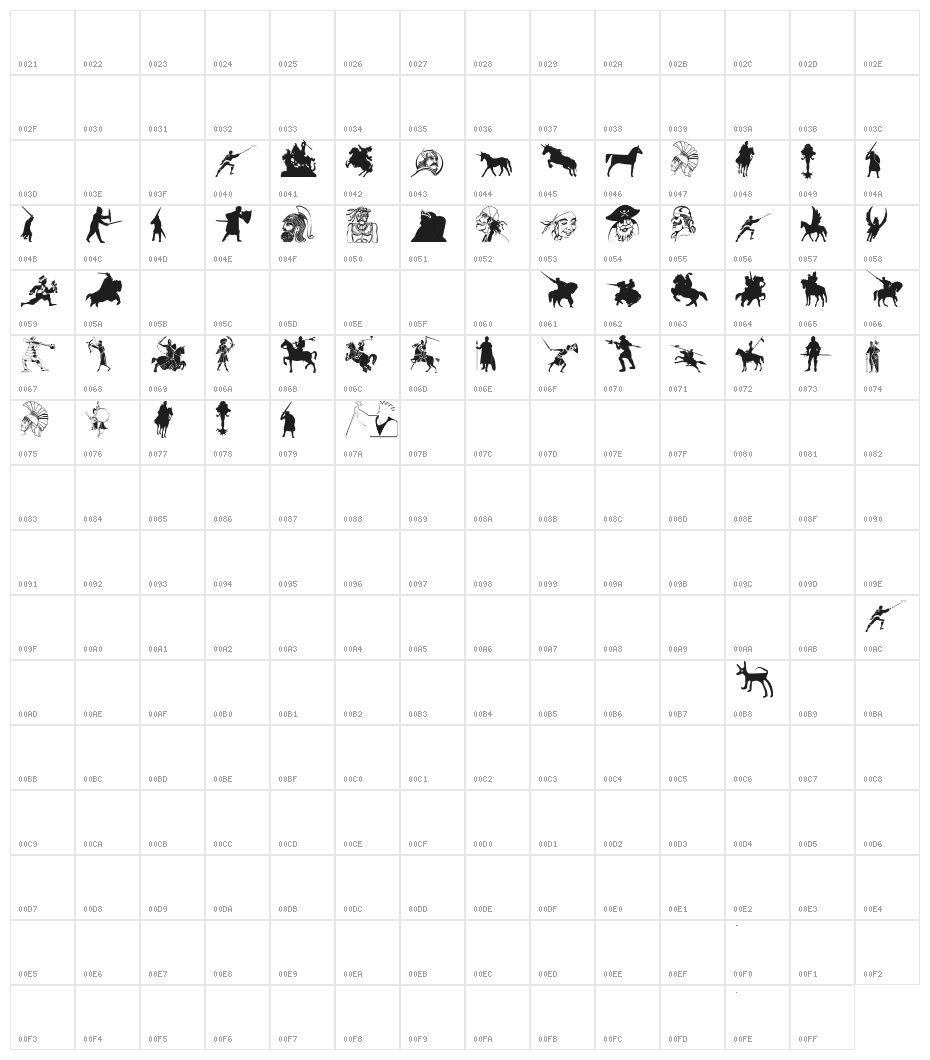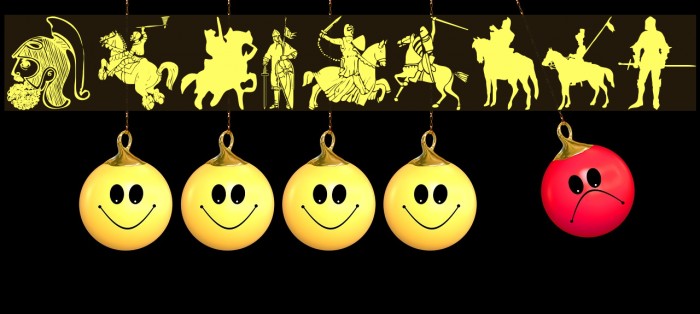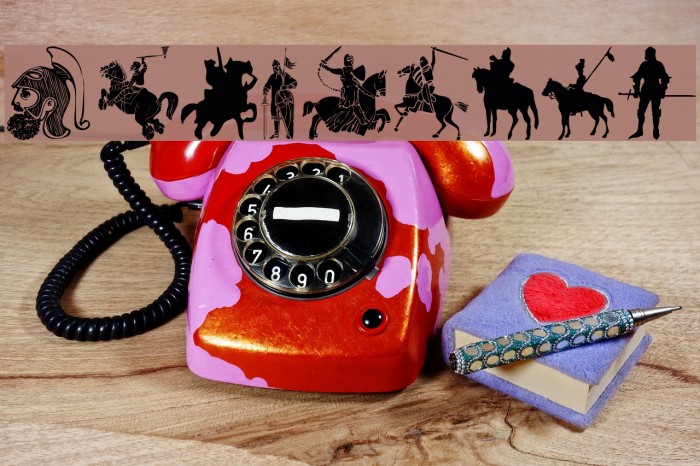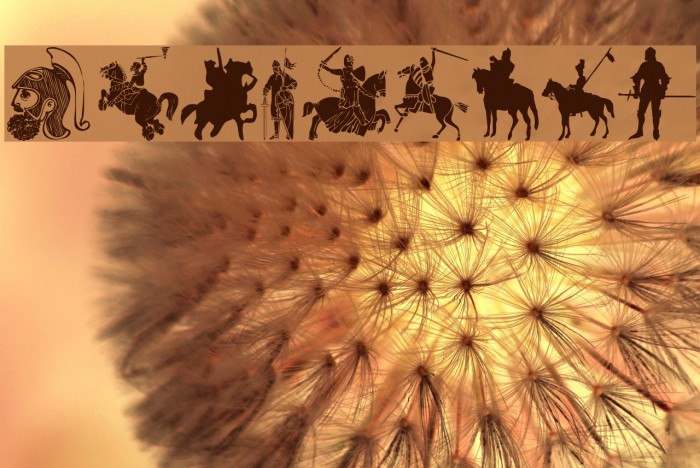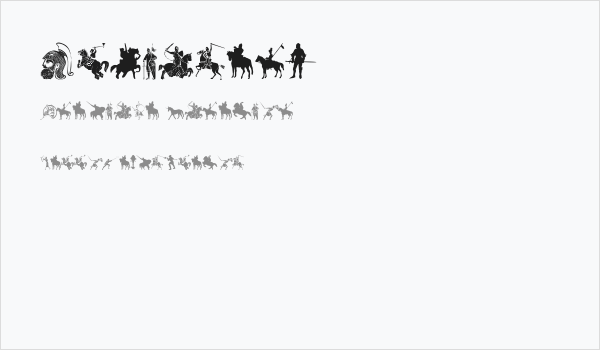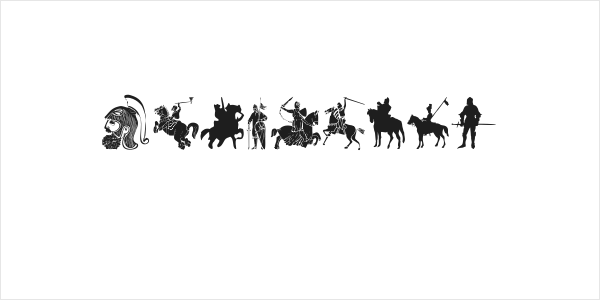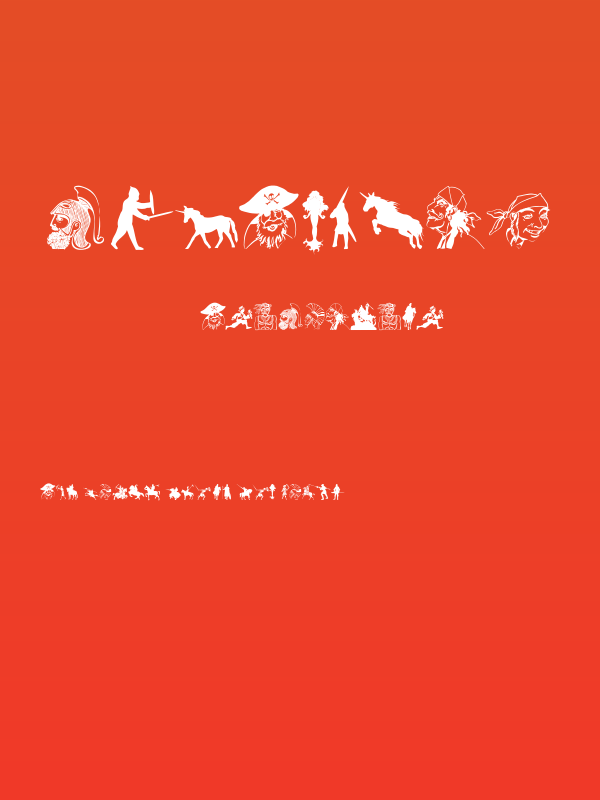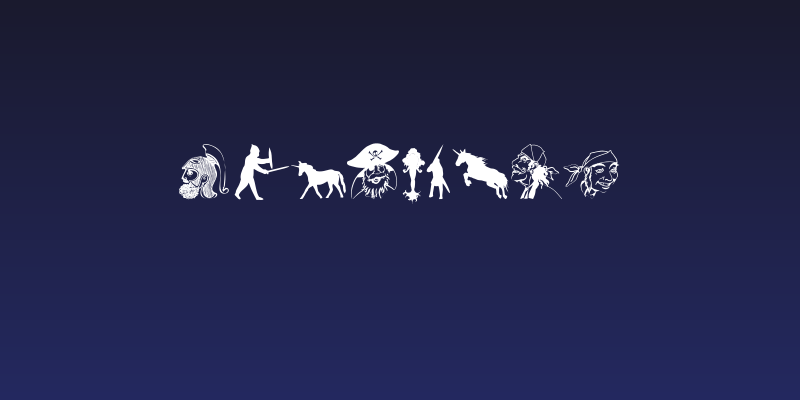
Oldtimers Font
Oldtimers Description
A decorative dingbat font featuring detailed silhouettes and line art of historical and mythical figures, warriors, horses, pirates, and various battle scenes, rendered in both solid black and outlined styles.
| Overall Style | Decorative, Thematic, Historic |
| Use Case | Illustrative elements, Themed graphics, Decorative accents |
| Proposed Projects | Themed party invitations, educational materials, fantasy book covers, game design, posters, and scrapbooking. |